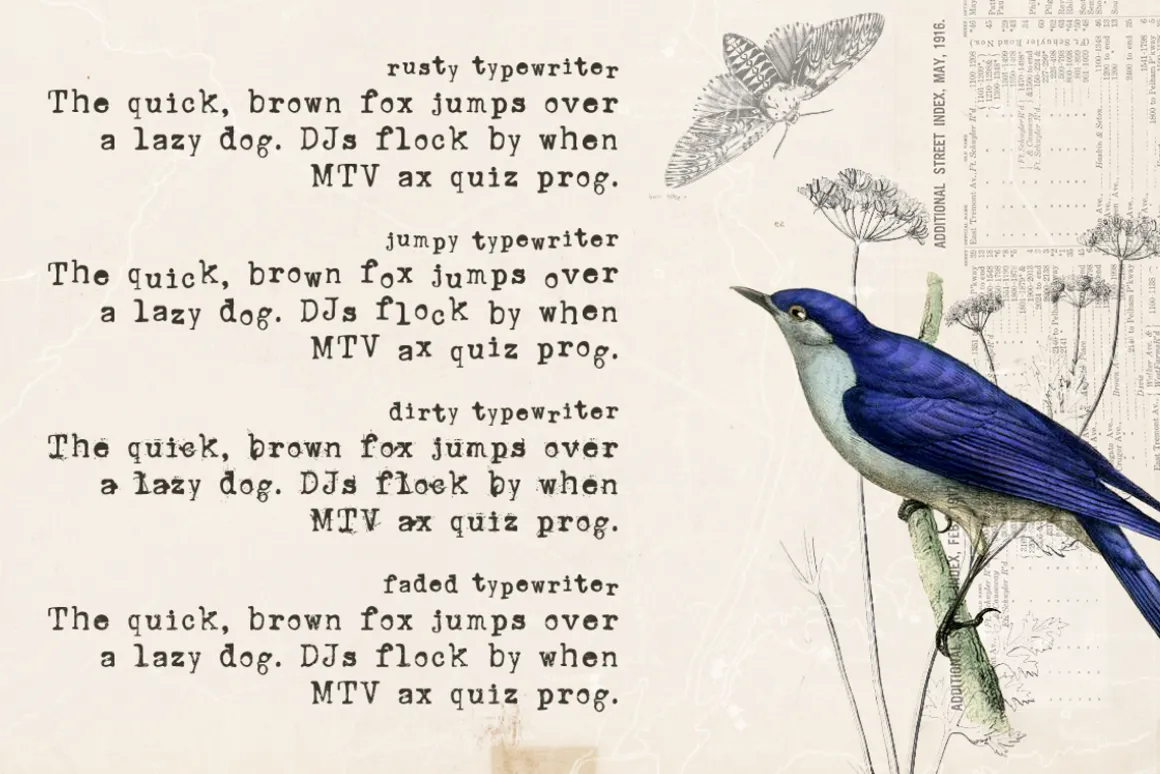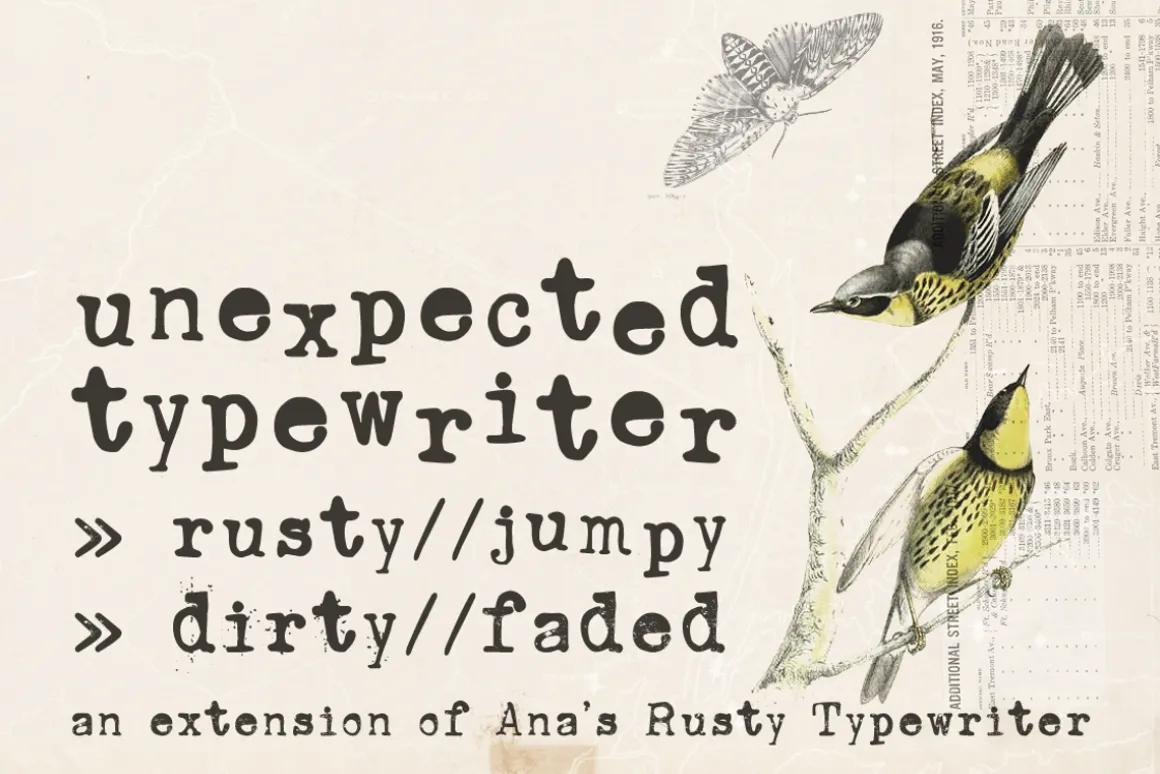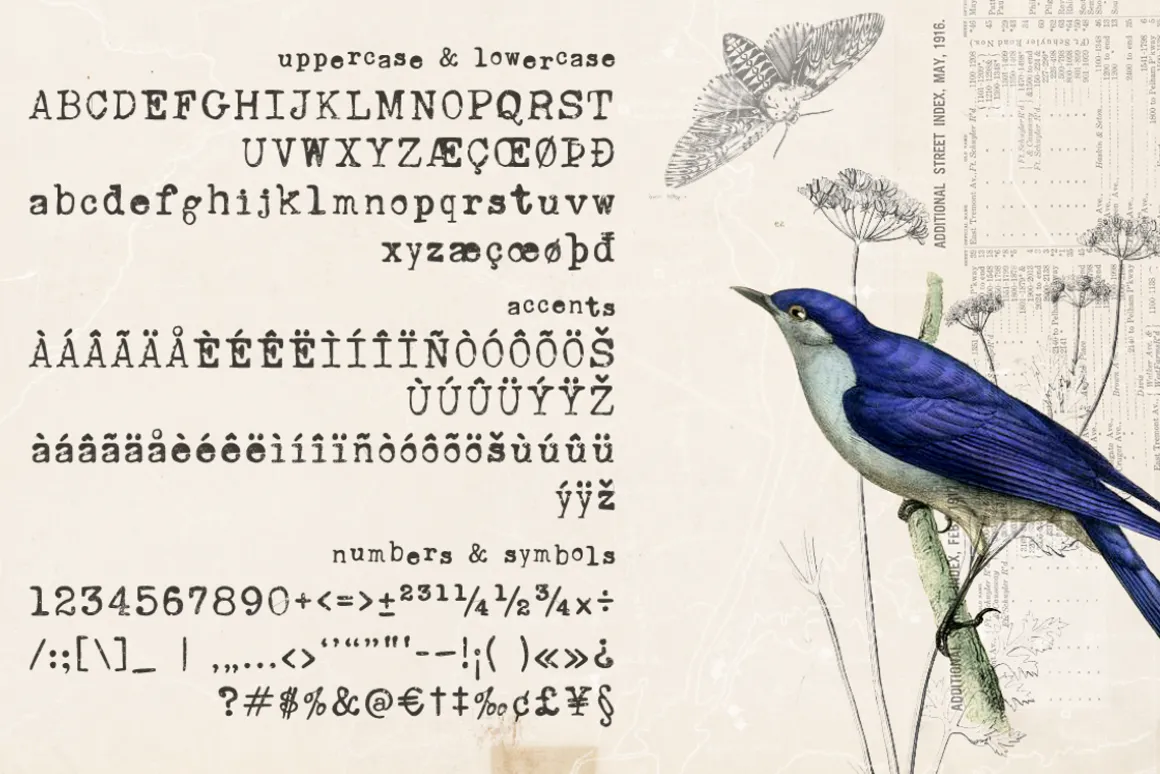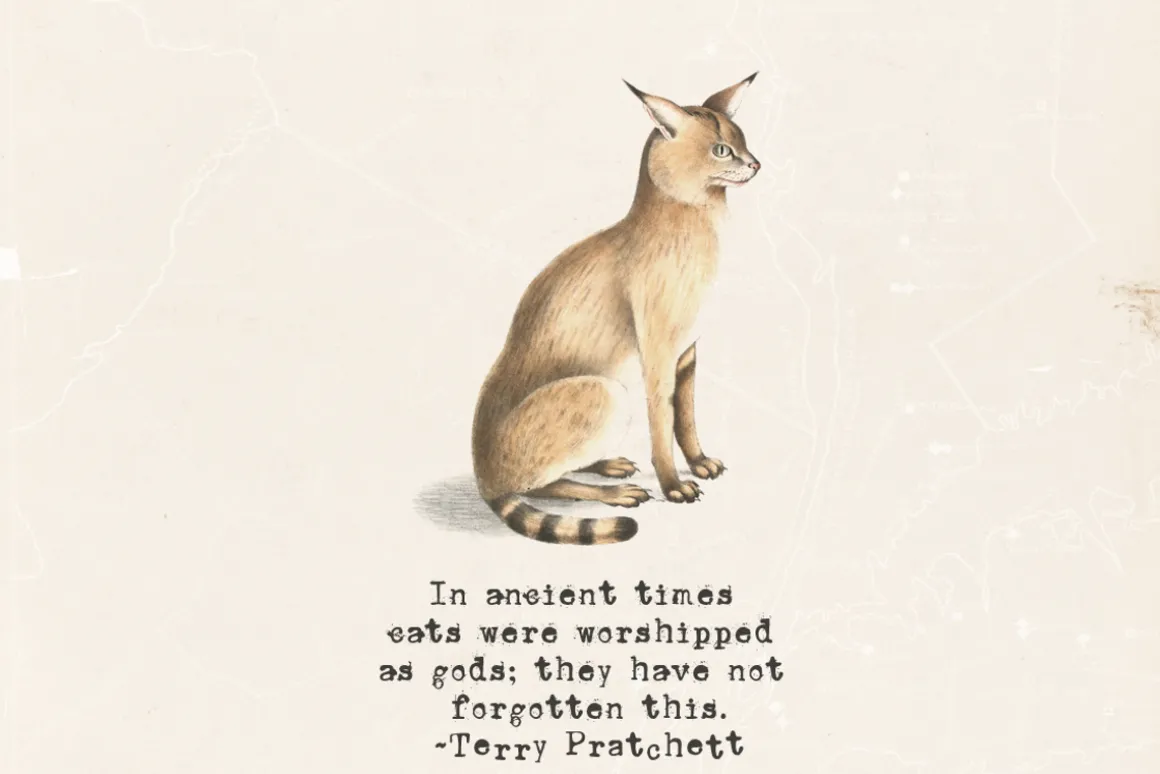
Unexpected Typewriter is a hand-drawn font based on an old Underwood typewriter, including:
- A-Z
a-z
0-9 - Punctuation & symbols
- Accents
- 3 variations of Ana’s Rusty Typewriter: Jumpy, Dirty and Faded Typewriter, ready to give your work that extra grungy, vintage look!